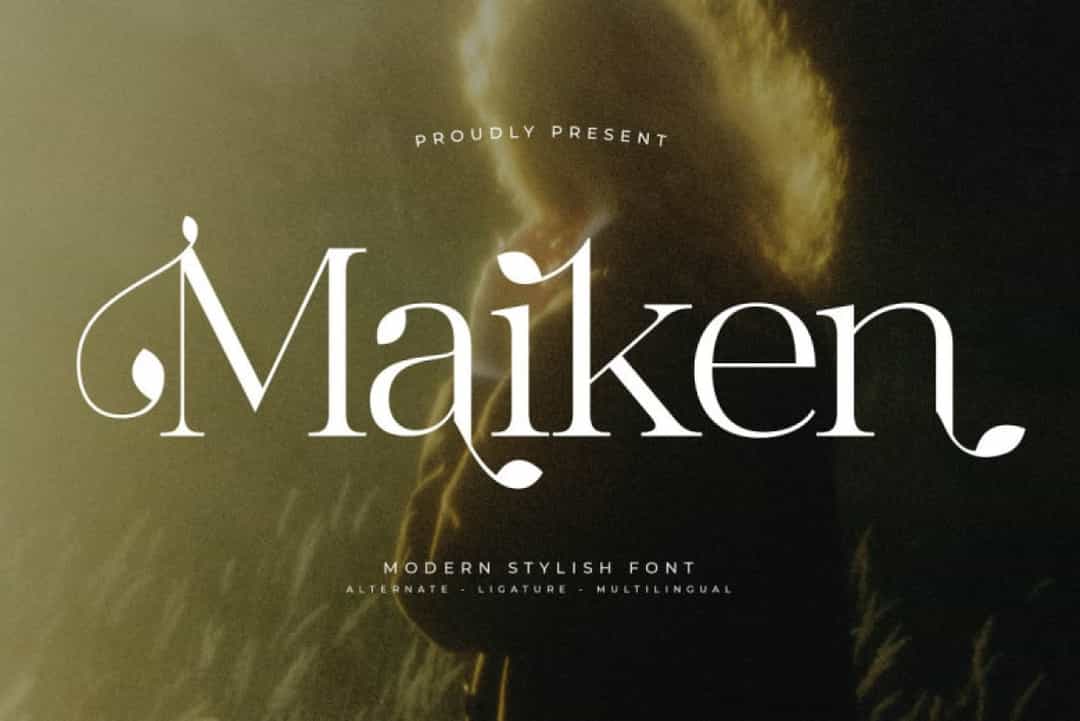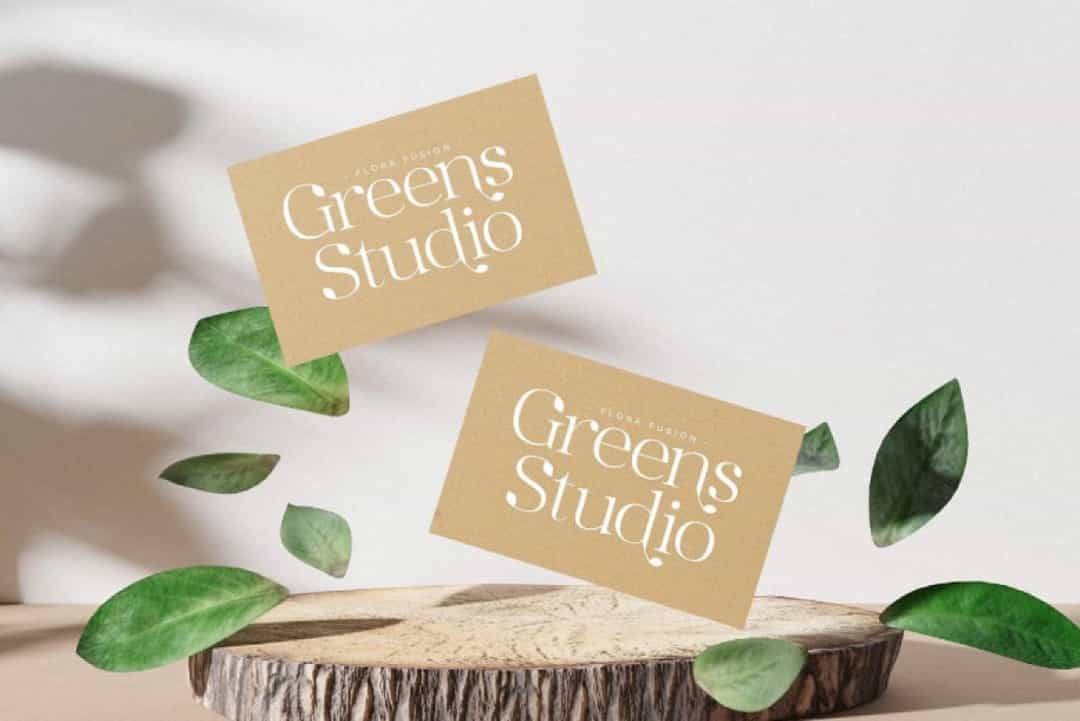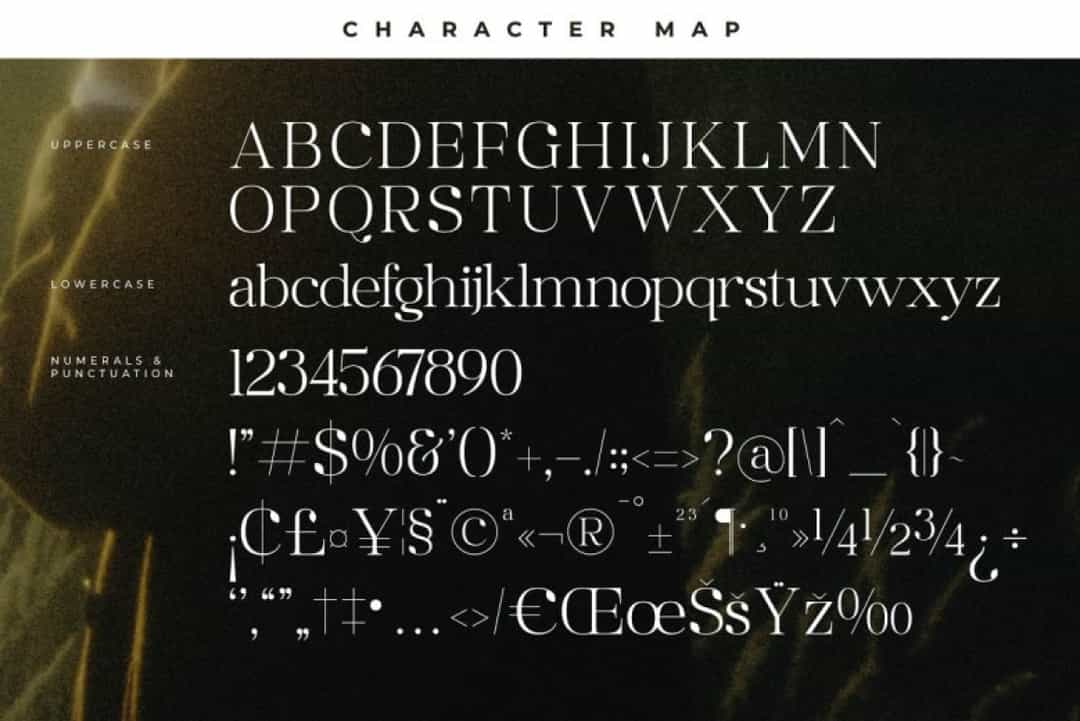
Maikenis an elegant and sophisticated serif font ideal for use in all sorts of projects, from logos and branding designs, homeware, packaging for products like mugs or posters, quotes or shopping bags, t-shirt covers for books as well as name cards greeting cards invitation cards labels photographs watermarks events special occasions special projects that require luxury serif features.